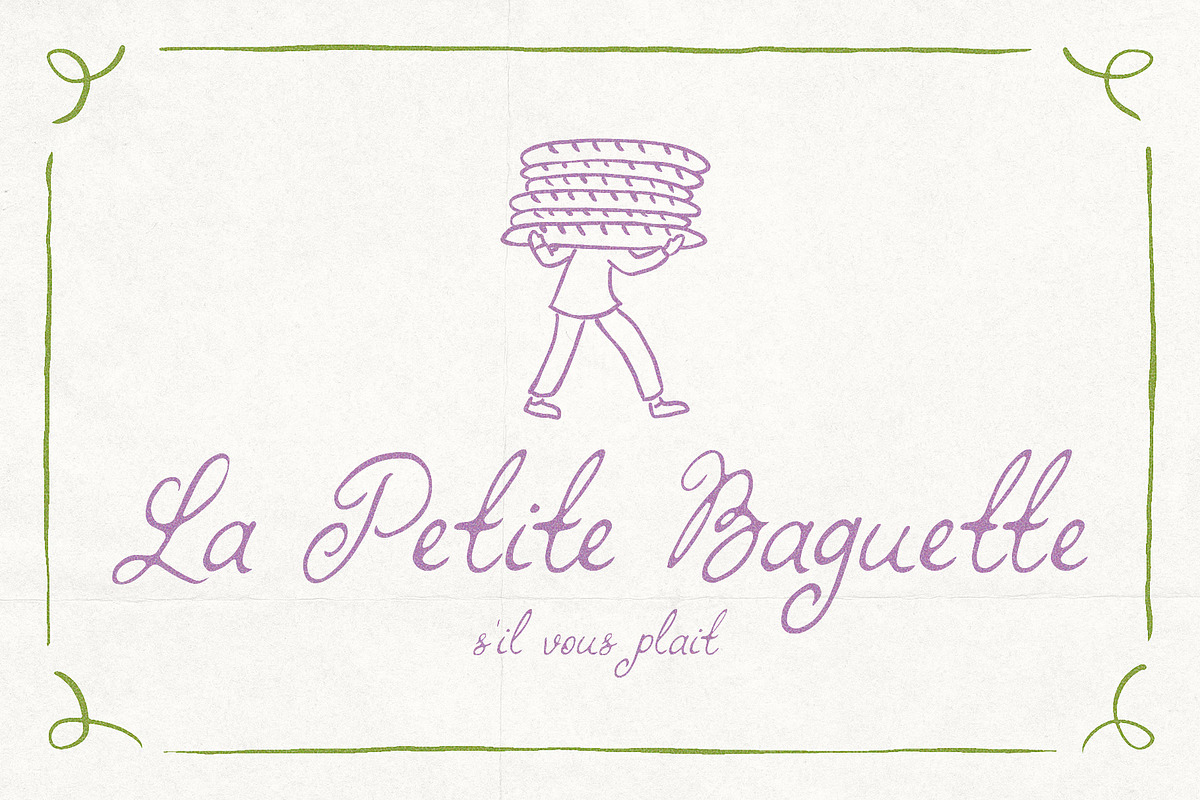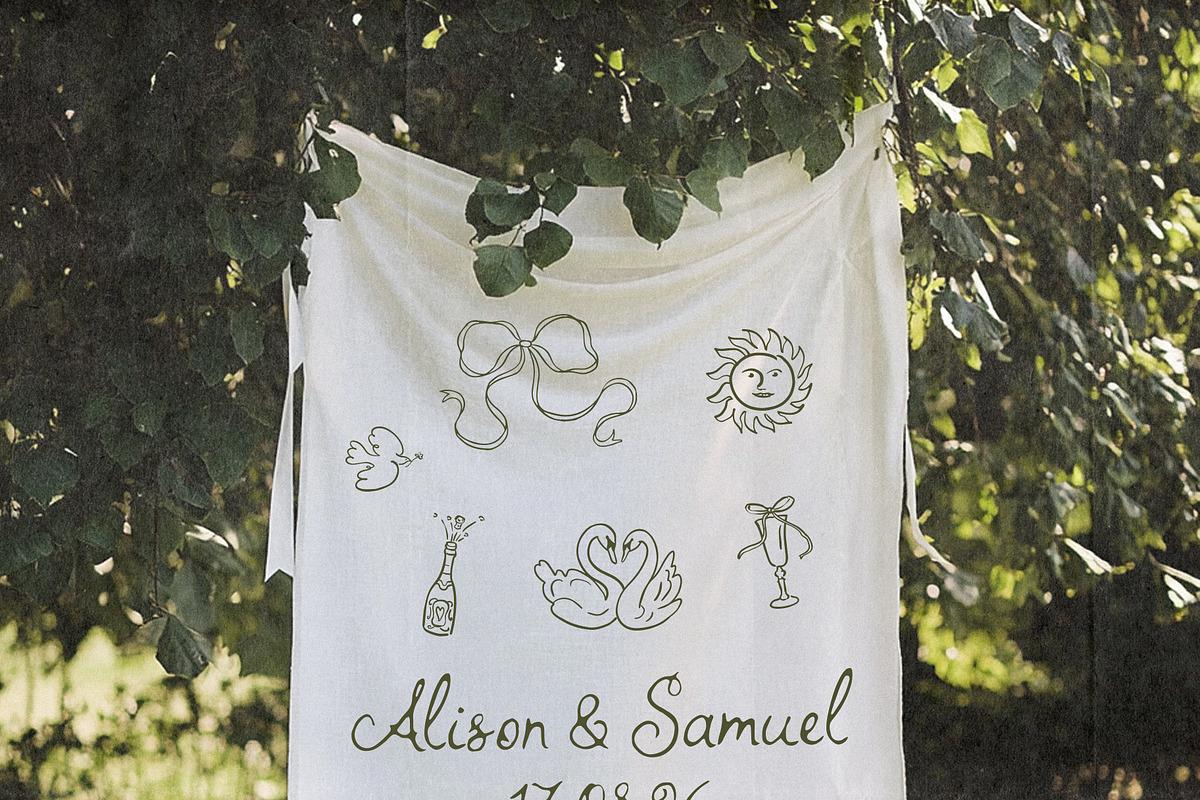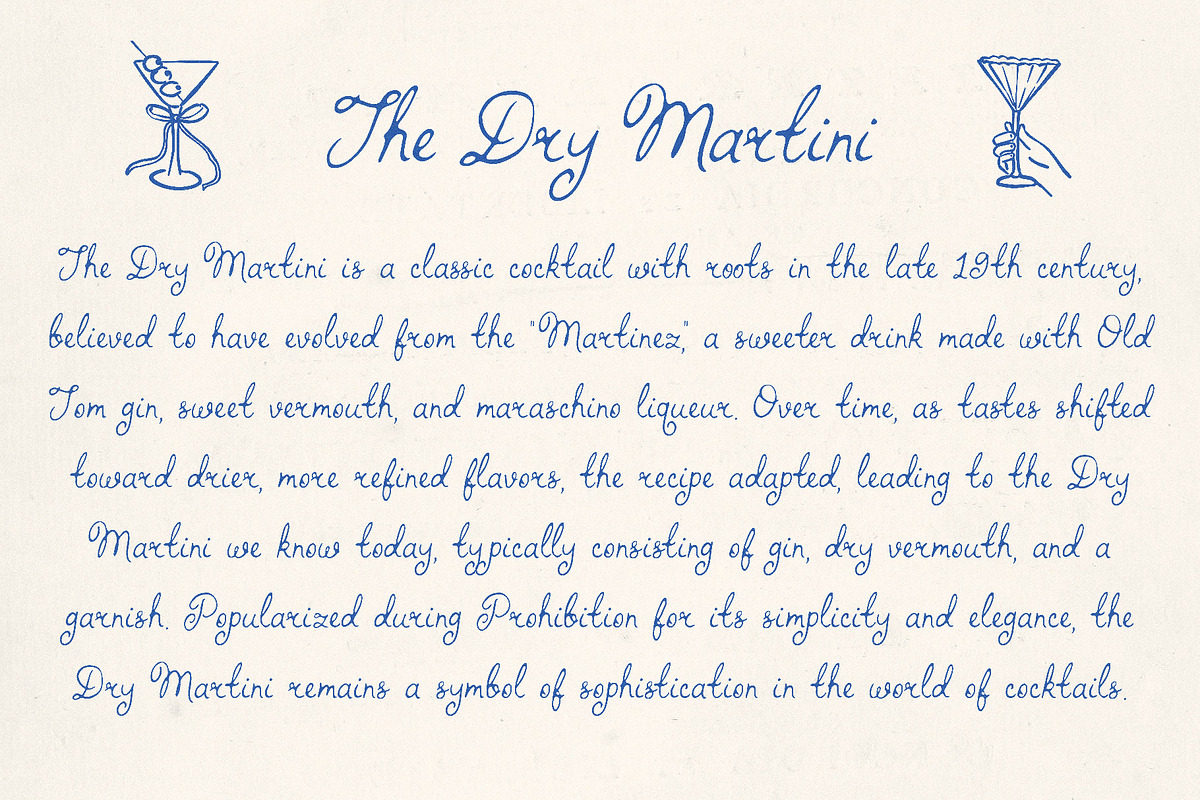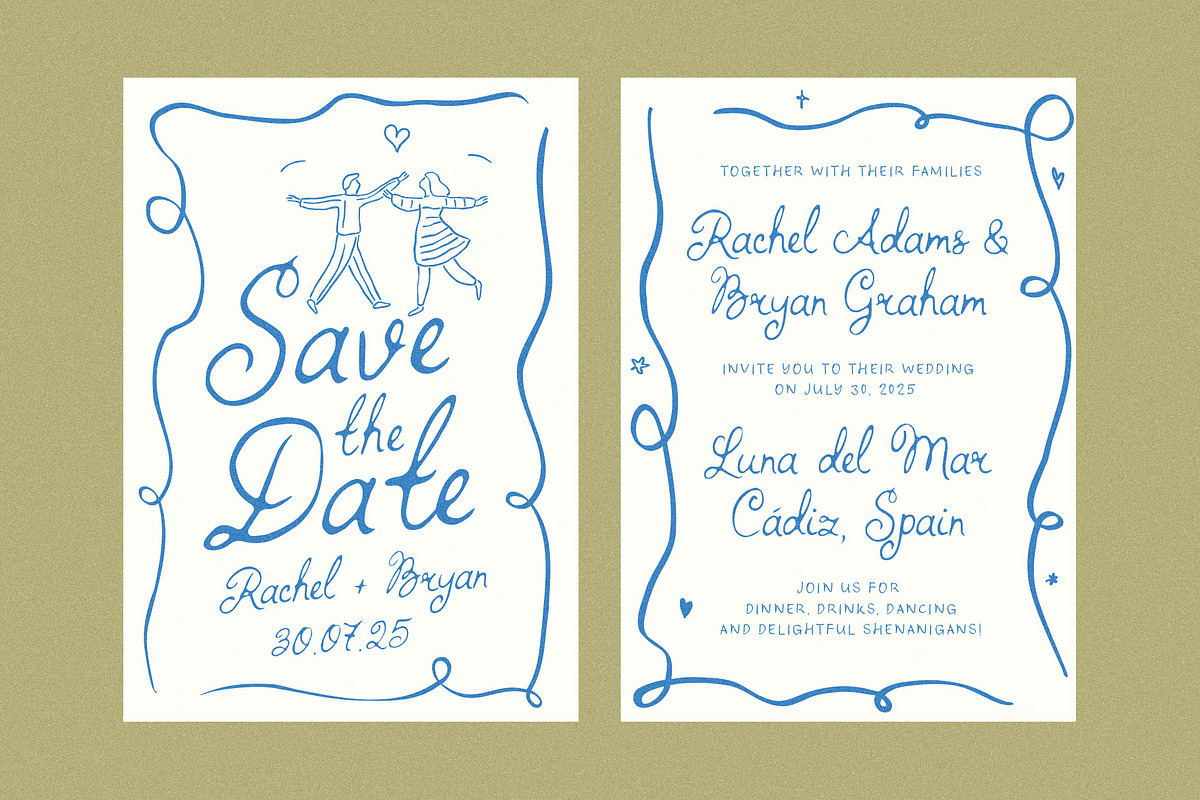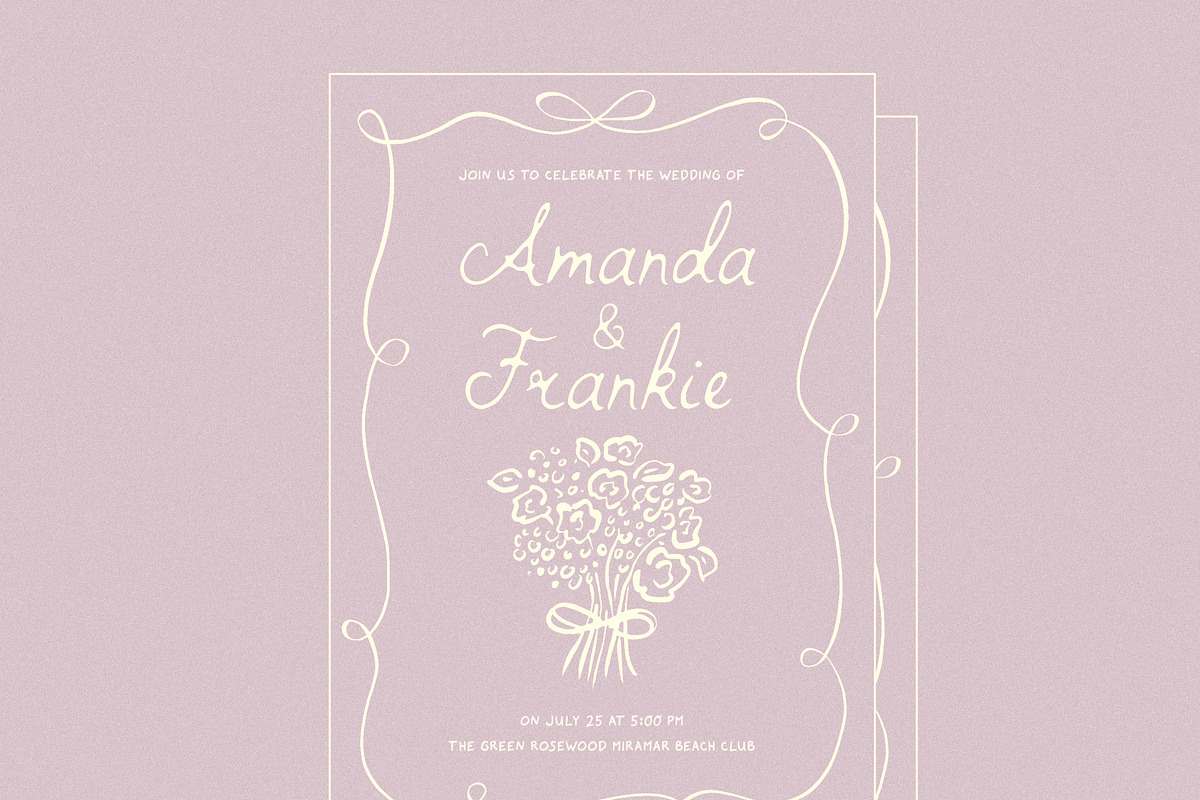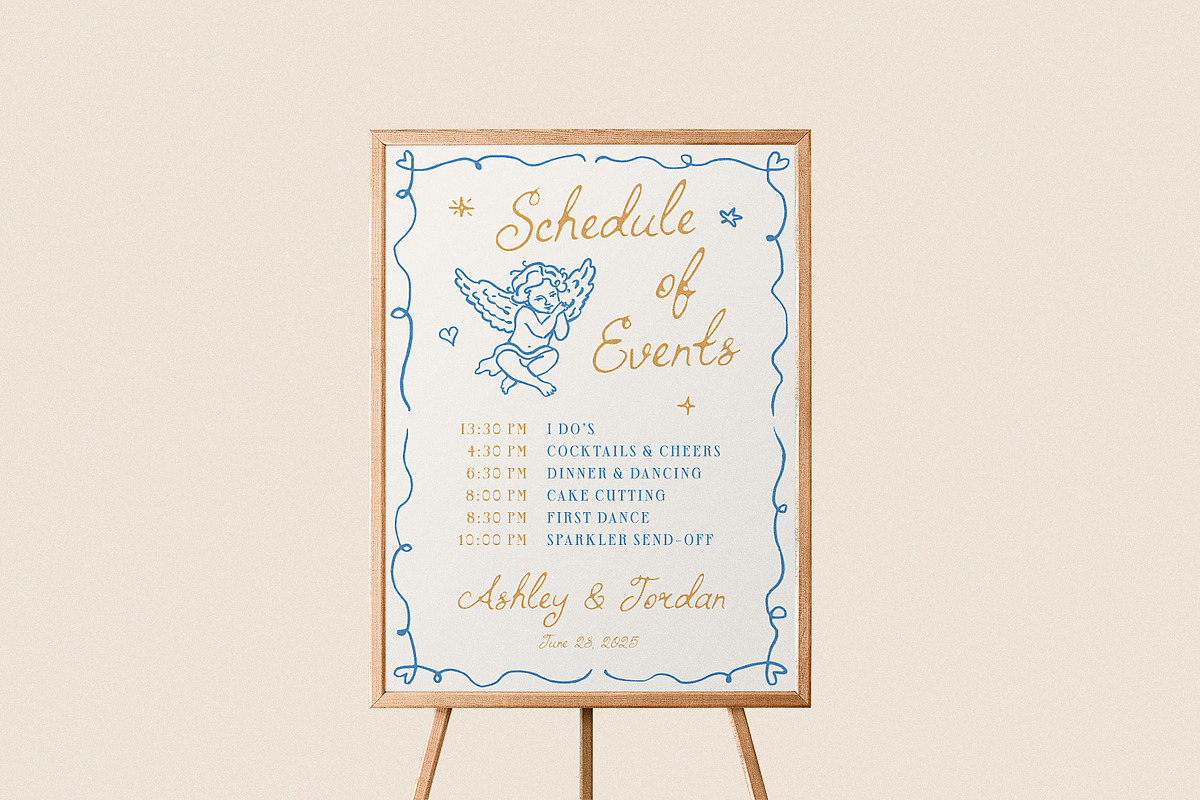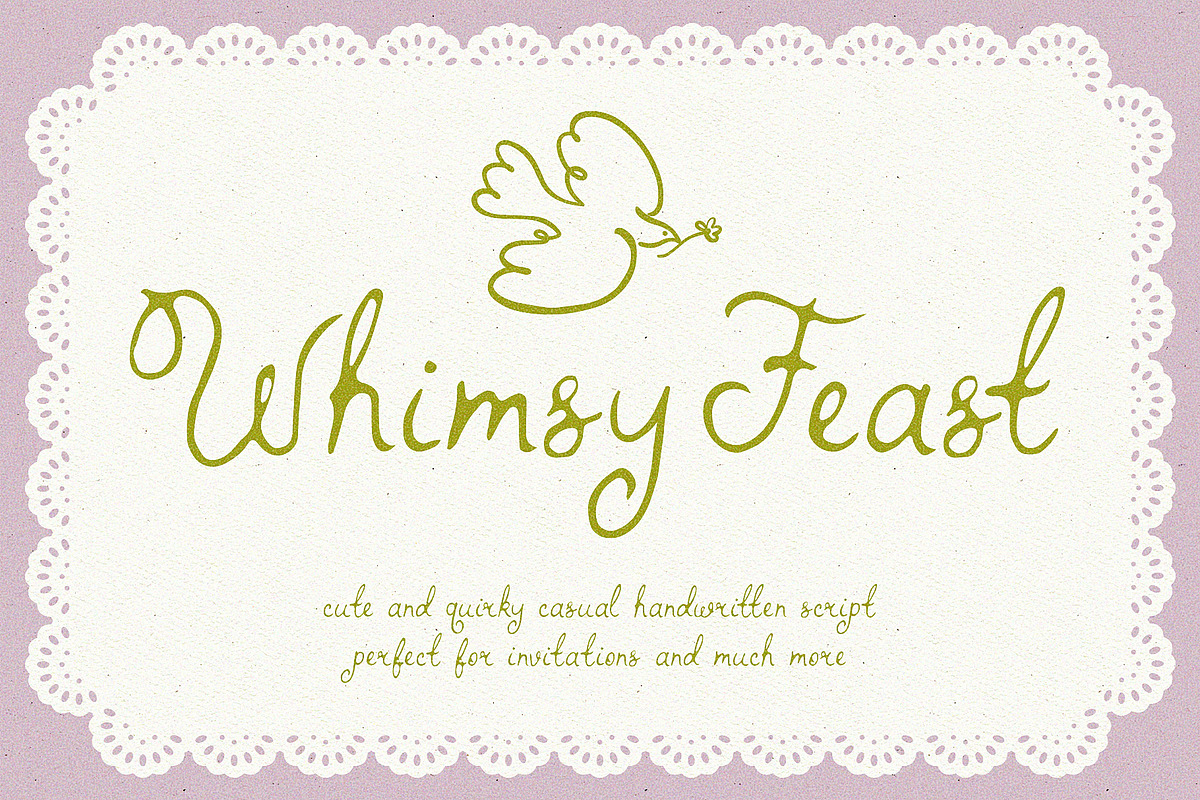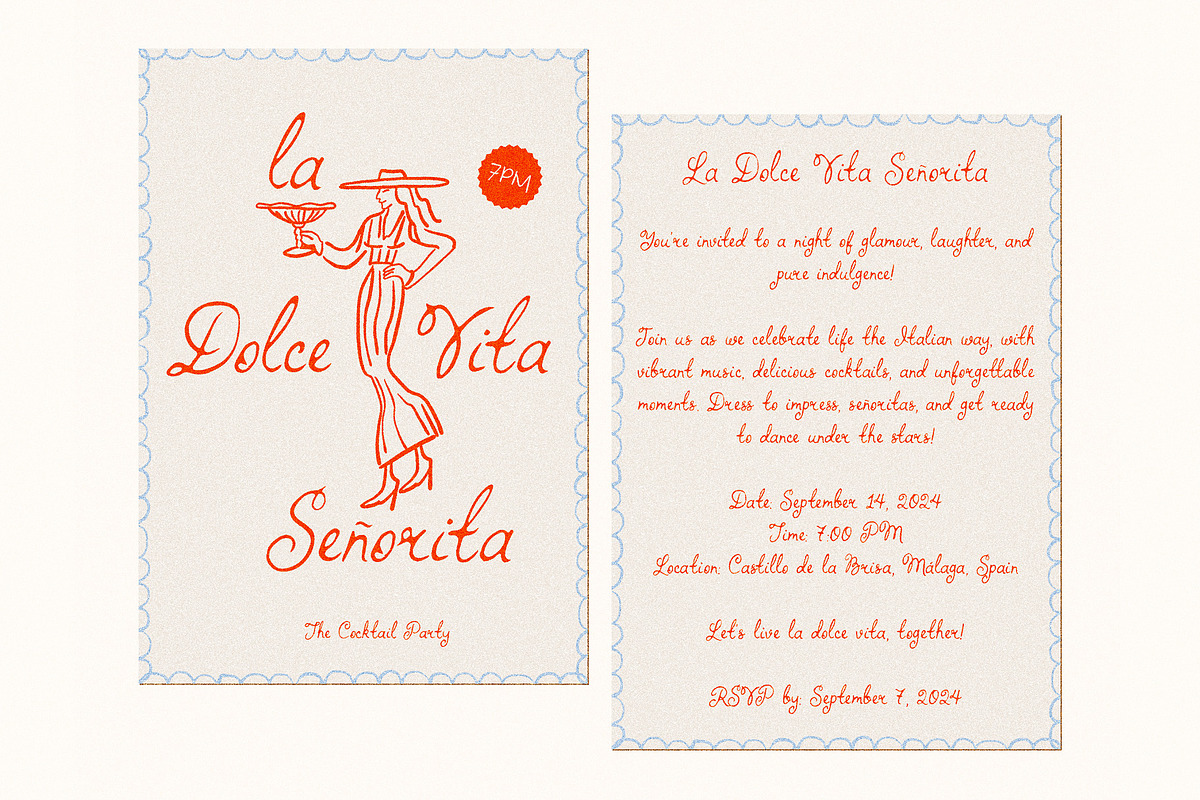
Whimsy Feast Whimsical Wedding Font
Whimsy Feast is a fully hand-drawn font, perfect for adding a unique and whimsical touch to your invitations, menus and much more. Every letter is crafted with care, making it an ideal choice for weddings, parties, and any event where you want your stationery to stand out. Whimsy Feast is a great choice for the 2024-2025 Wedding Season.